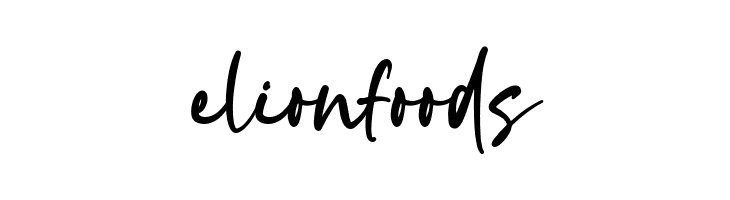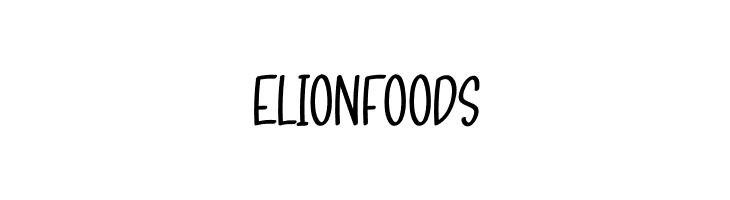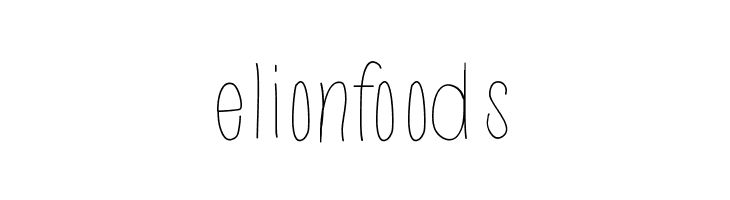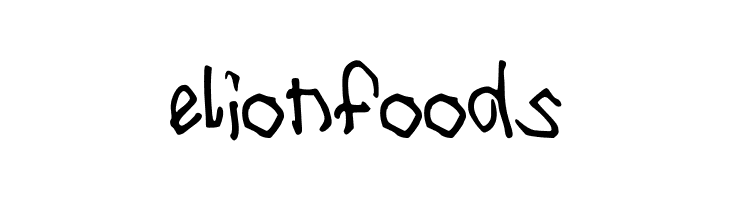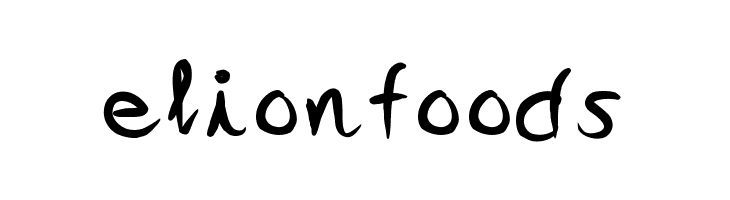
( Fonts by Kristian Immonen )
A bold, playful handwritten font with a casual and friendly vibe.
( Fonts by Kristian Immonen )
A playful, casual handwritten font with a relaxed and informal appearance.
( Fonts by Andi Moz )
A playful, handwritten font with smooth curves and a casual style.
( Fonts by Fikryal studio )
A lively and dynamic handwritten font with fluid strokes and playful character.
( Fonts by Ideas and Apps )
A dynamic handwritten font with fluid, expressive strokes and a playful character.
( Fonts by Katelyn Dancer )
Playful handwritten font with tall, narrow letters.